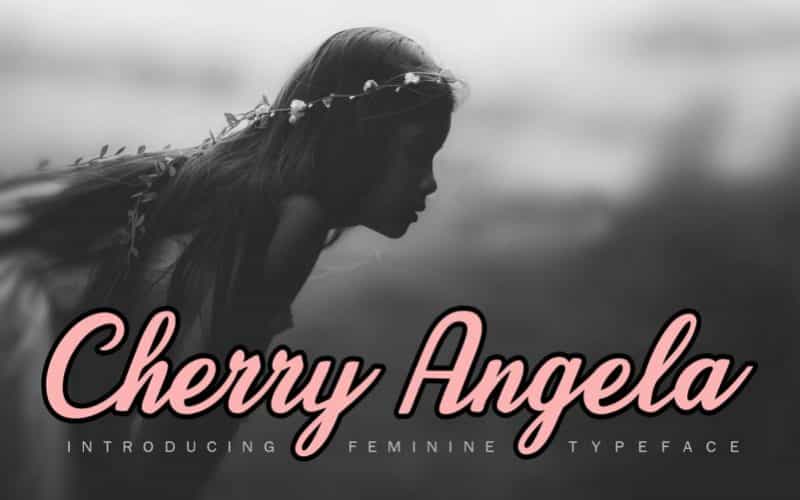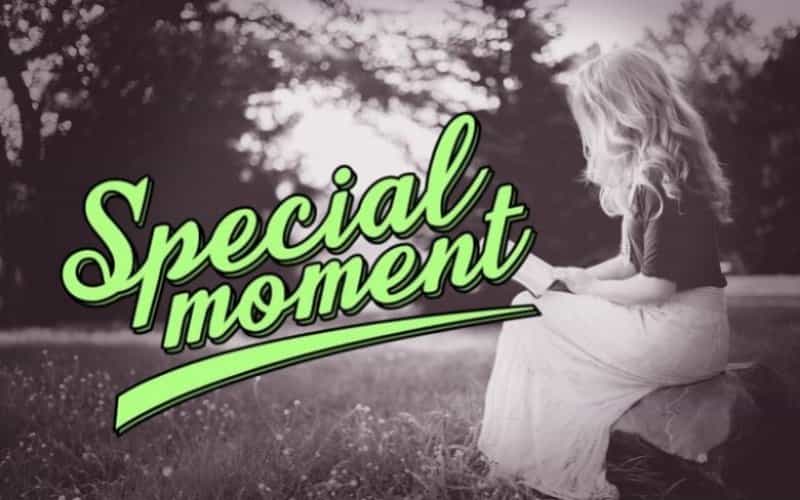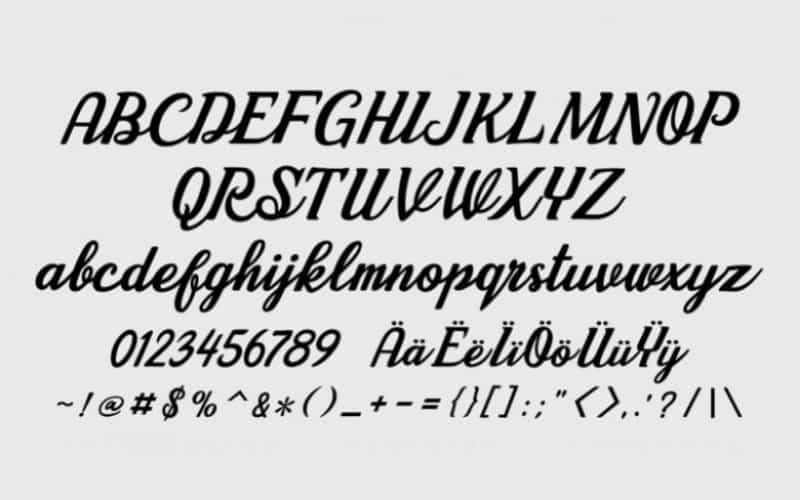
Cherry Angela is a beautiful and quite girlish handwritten font. You can apply it to the poster title, logotype, brand product, or any design product that you require. Also, include TTF and OTF fonts.